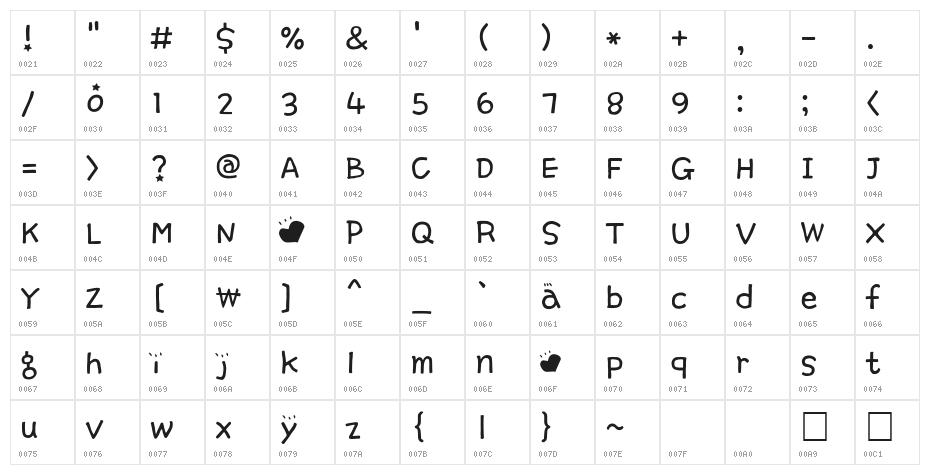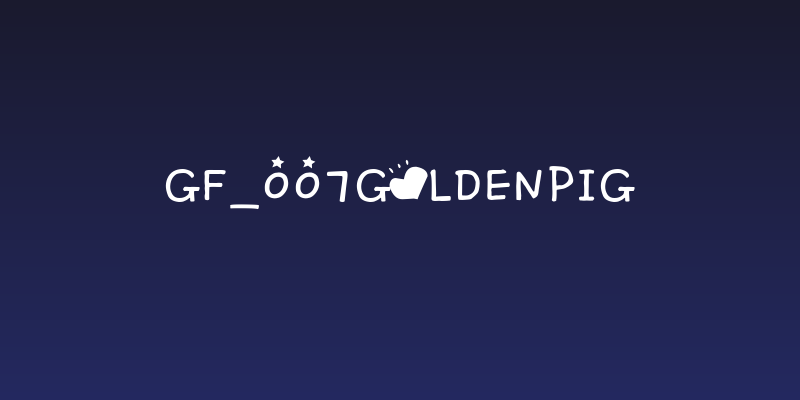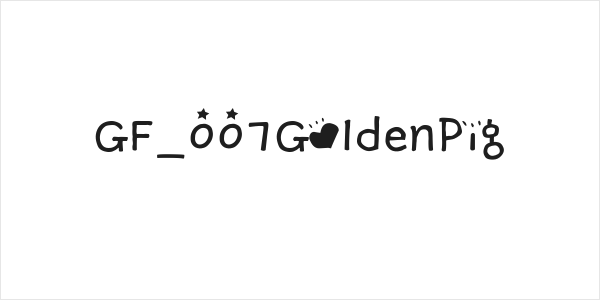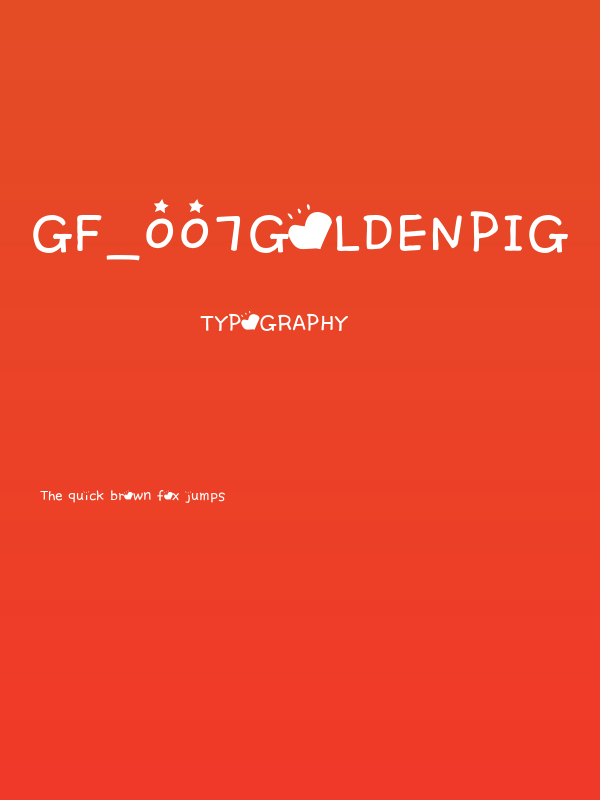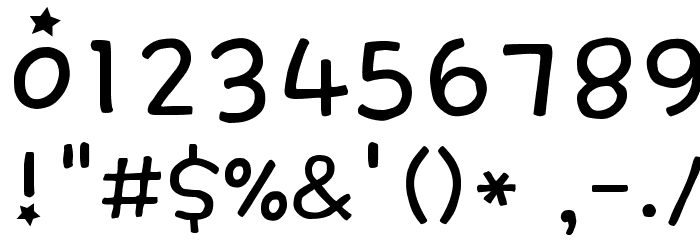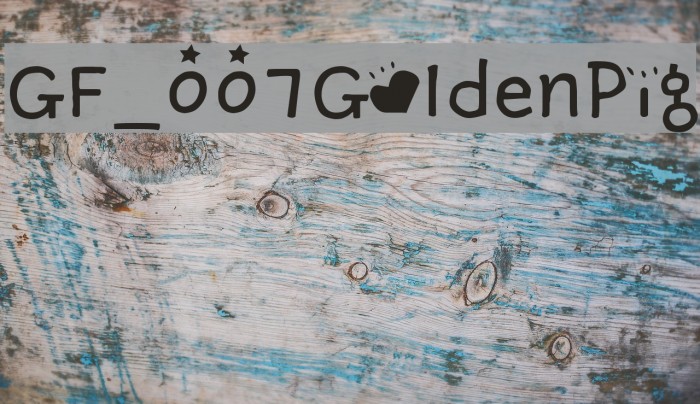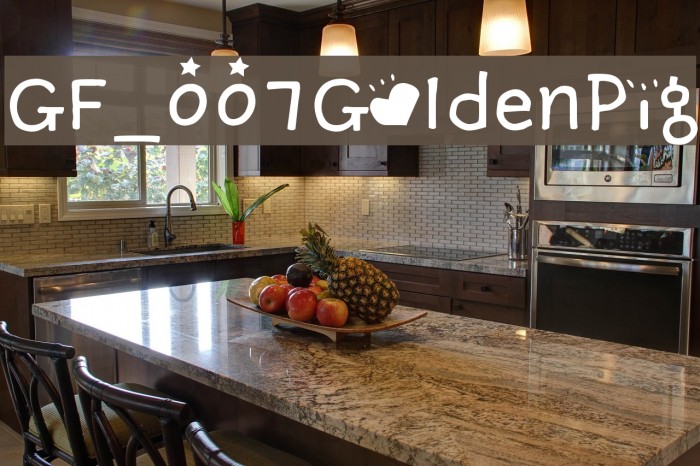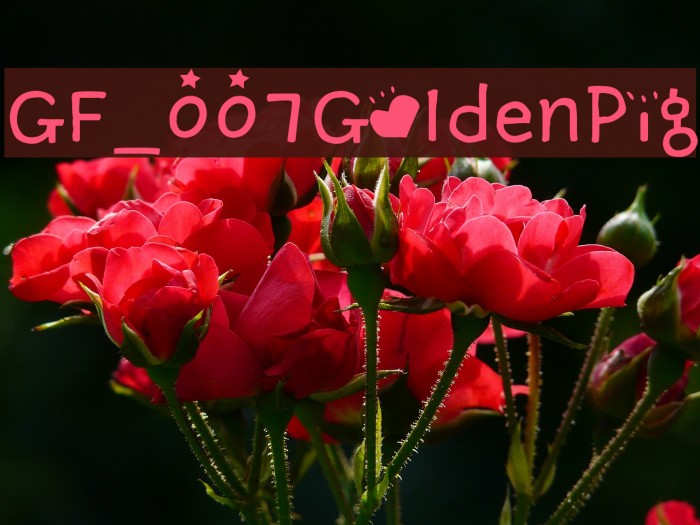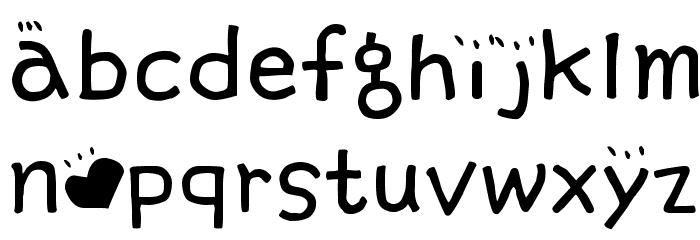
GF_007GoldenPig Font
GF_007GoldenPig Description
This playful and whimsical font features a unique and charming style with rounded edges and a slightly irregular baseline, giving it a hand-drawn appearance. The uppercase letters are bold and prominent, while the lowercase letters maintain a consistent flow with quirky details, such as the heart-shaped 'o' and the dotted accents on certain characters. The numbers are equally playful, with a consistent weight and style that complements the alphabet. Special characters are included, adding versatility to the font. Overall, this font exudes a sense of fun and creativity, making it ideal for projects that require a lighthearted and engaging touch.